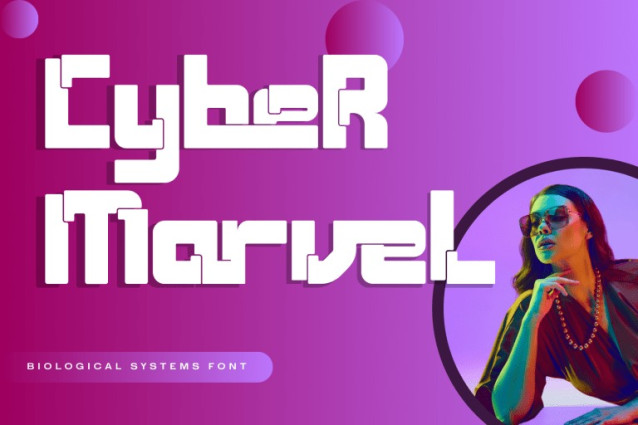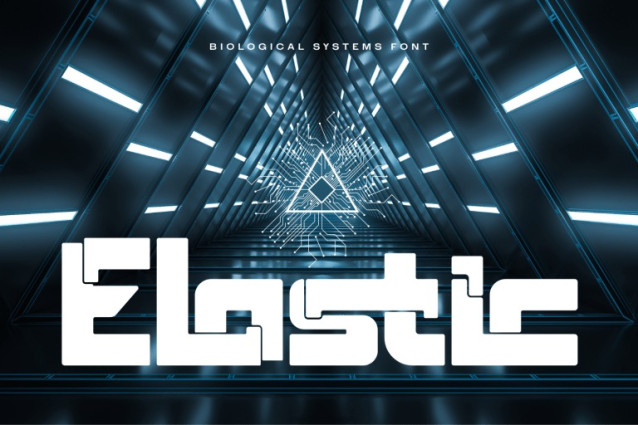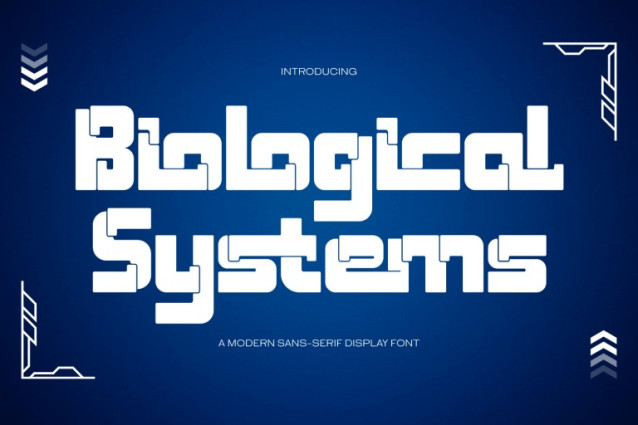
Biological Systems Font
Biological Systems – Tech Font is a modern futuristic display typeface built on a modular geometric system. Featuring bold blocky forms with smooth rounded corners and sharp structural cuts, this typeface delivers a clean yet powerful high-tech aesthetic. Designed with interlocking letterforms and consistent monoline weight, Biological Systems creates a strong visual rhythm that feels both digital and mechanical. Its compact structure and balanced proportions make it ideal for headlines, logos, UI design, and tech-focused branding.
🔤Features:
Uppercase & Lowercase Letters
Around 100 Special Ligatures & Alternates
🔤About 100 ligatures combined with Stylistic Alternates Font: